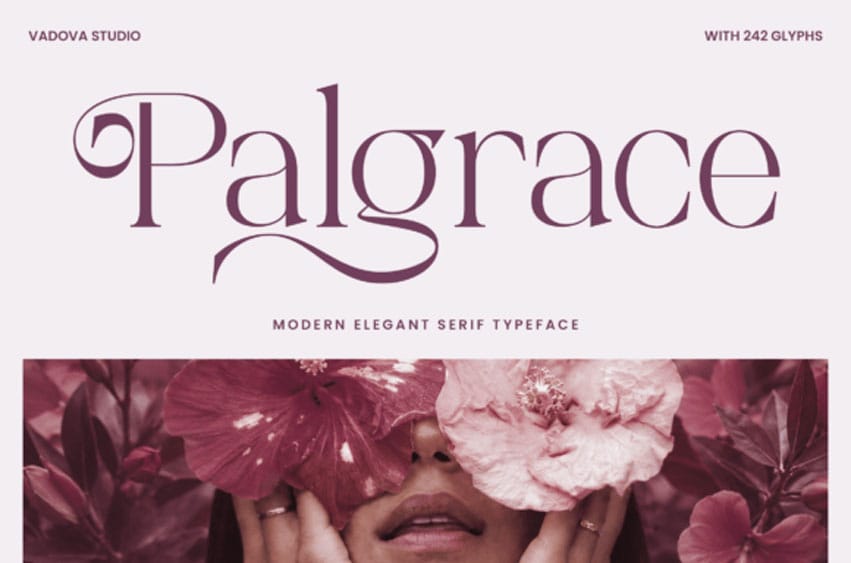
Palgrace Font Infuse soft feminine charm, high-fashion grace, and poetic romance into your branding with Palgrace!
Whether you’re designing luxury cosmetic packaging, boutique logos, editorial fashion magazine spreads, romantic wedding invitations, floral branding, or custom craft SVG cut files, Palgrace brings an unforgettable touch of effortless elegance to every headline!